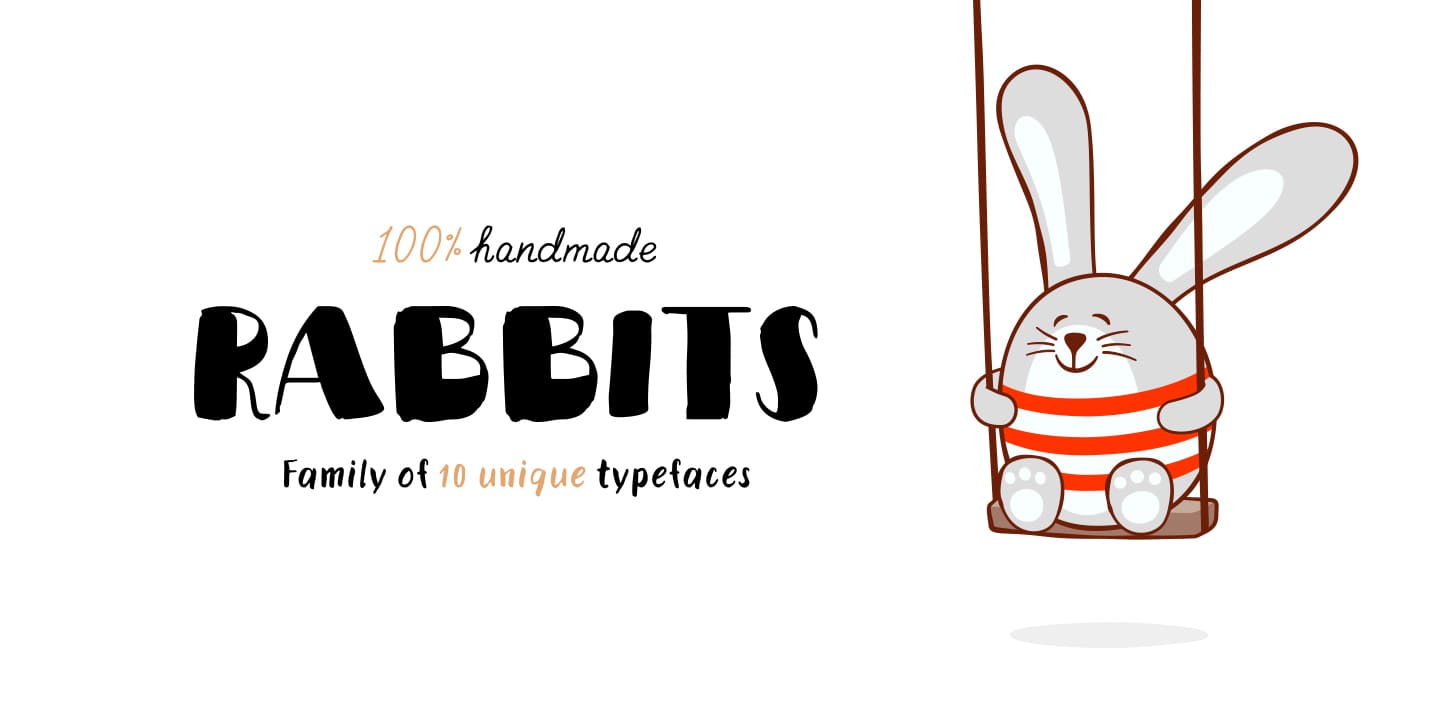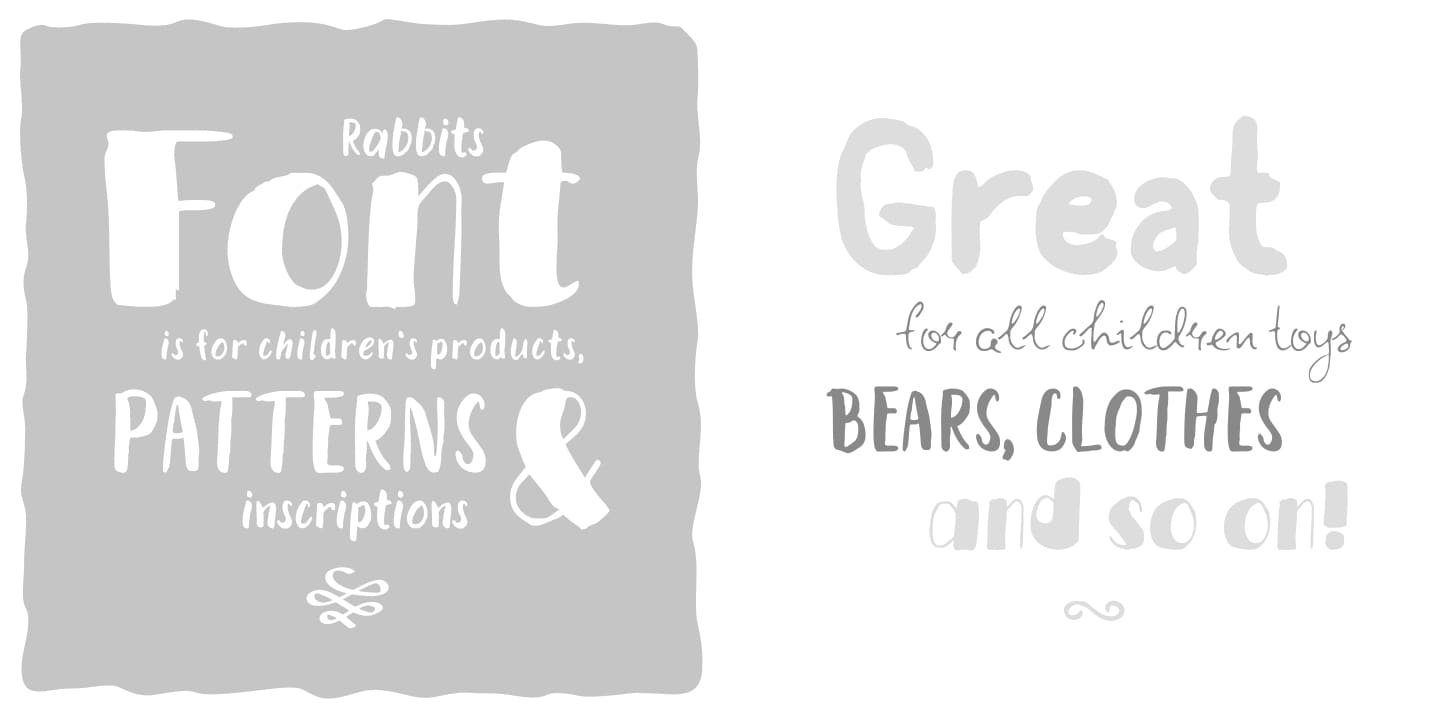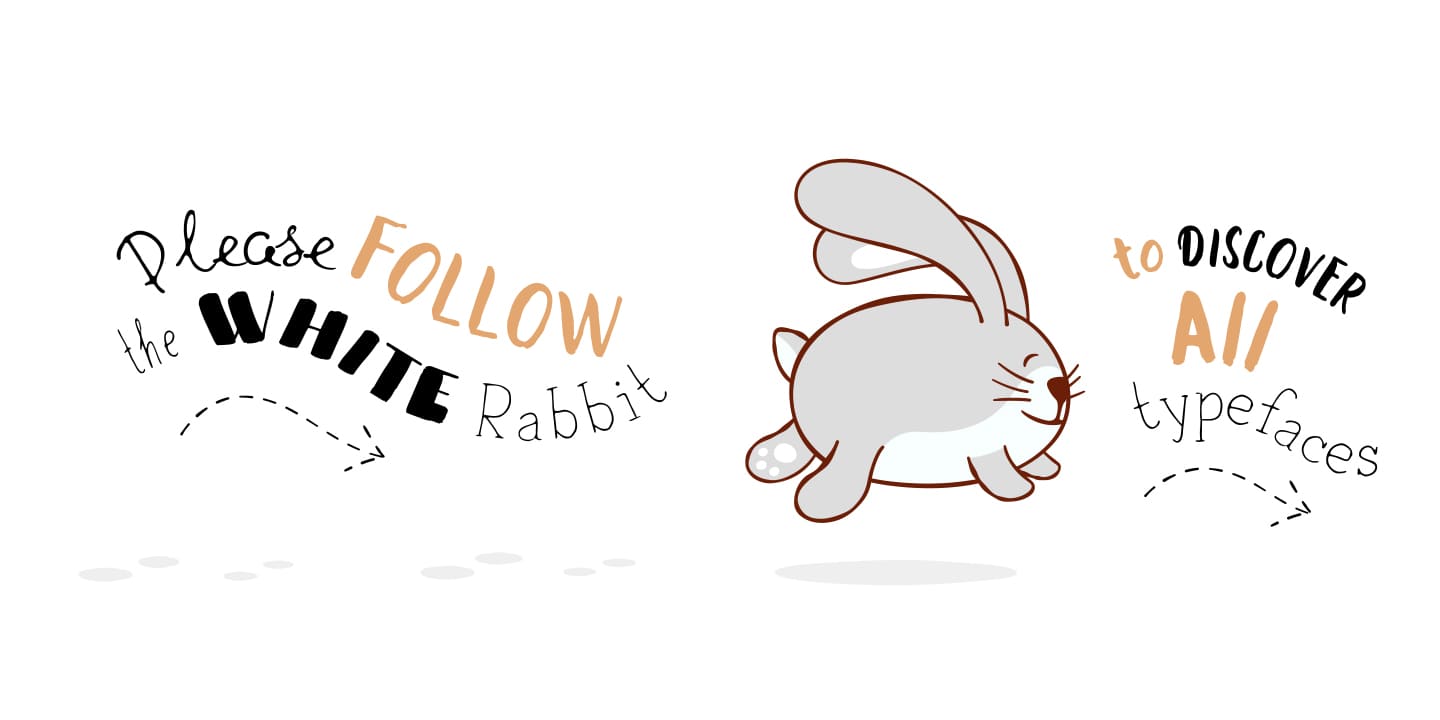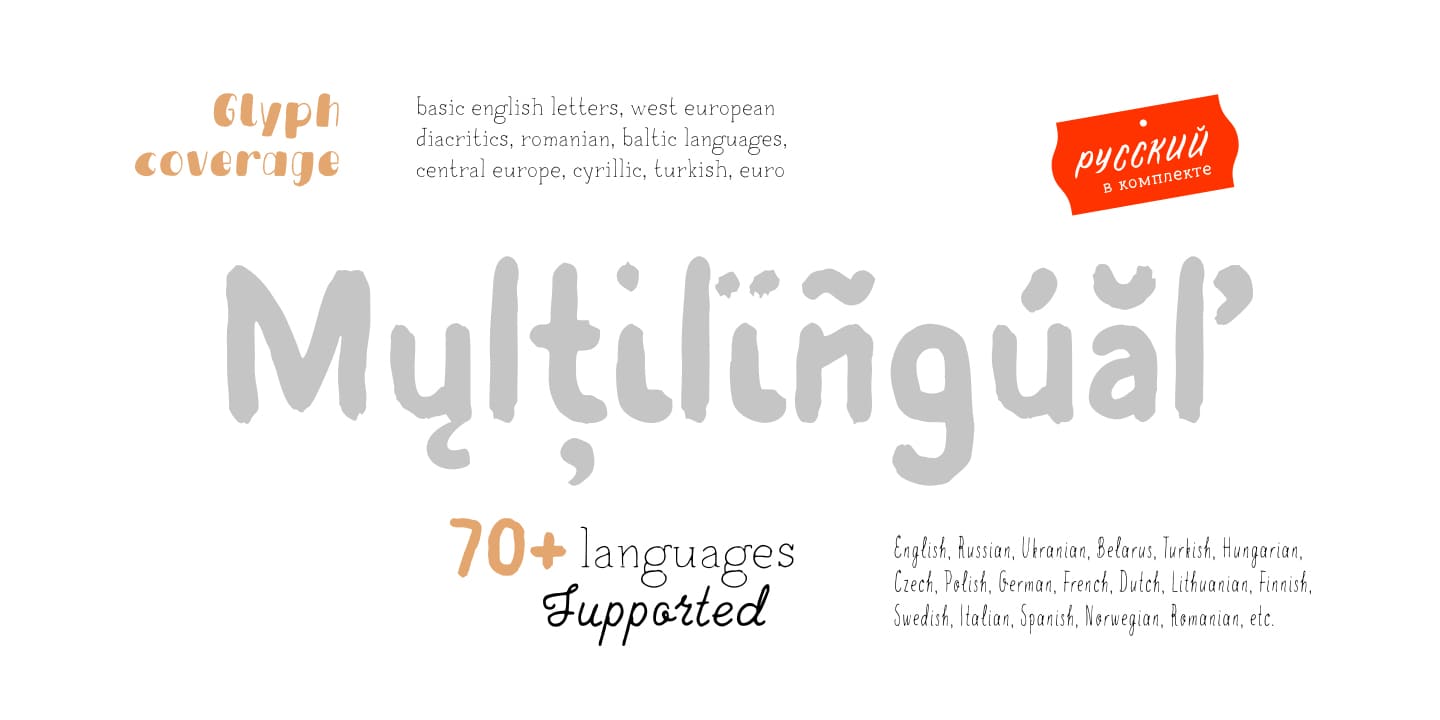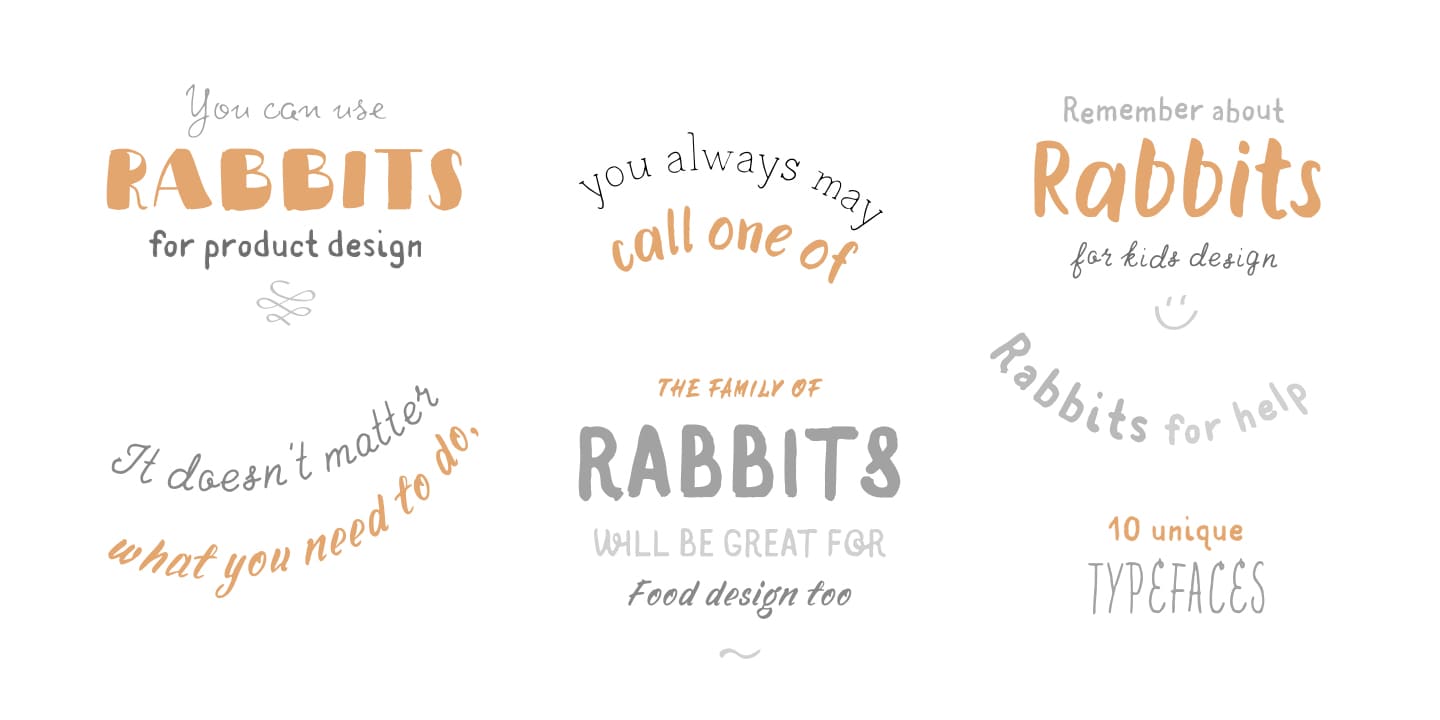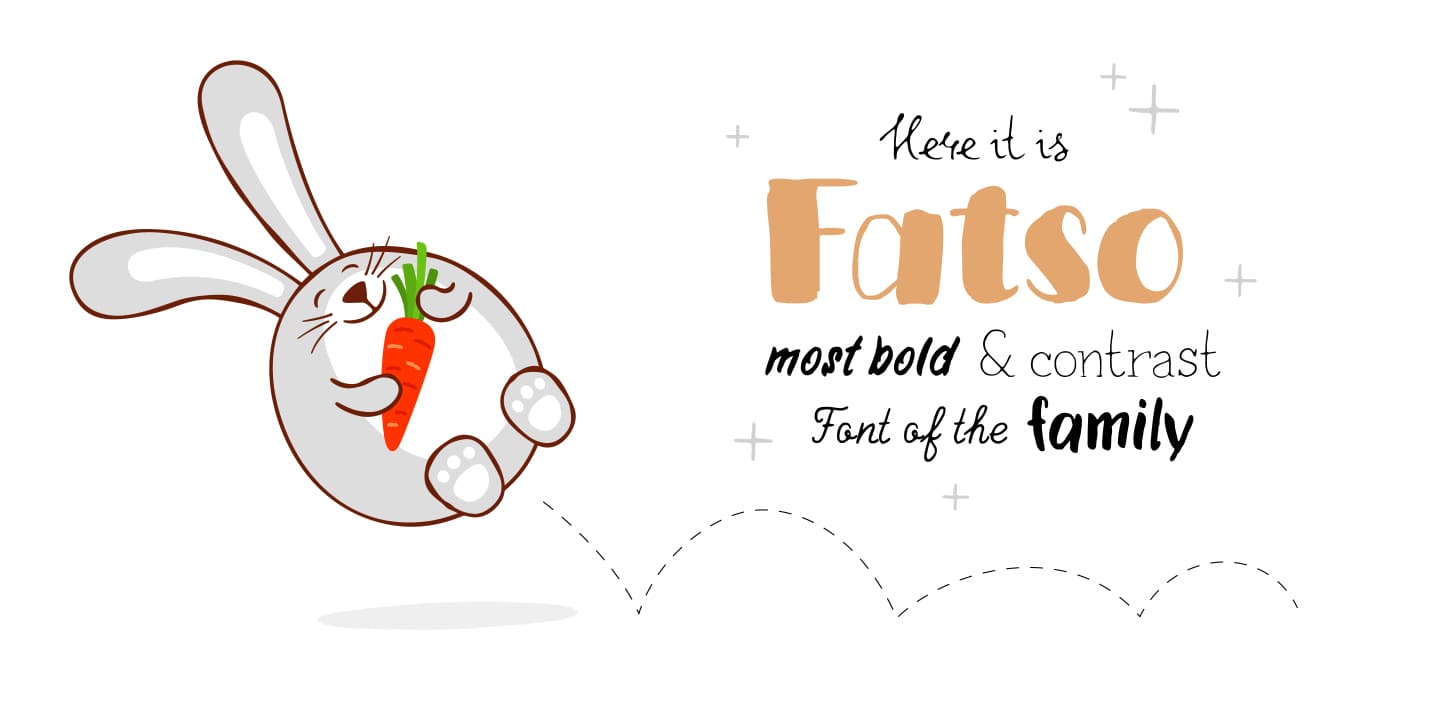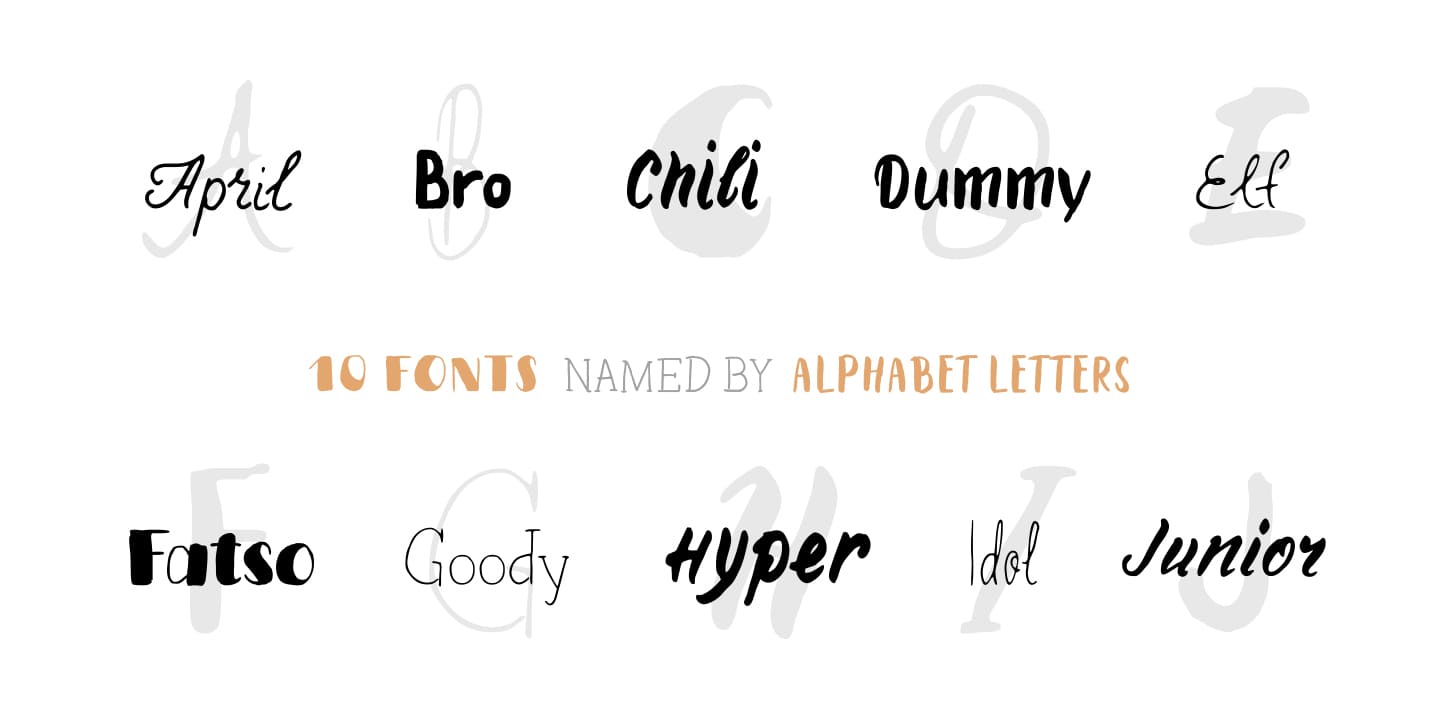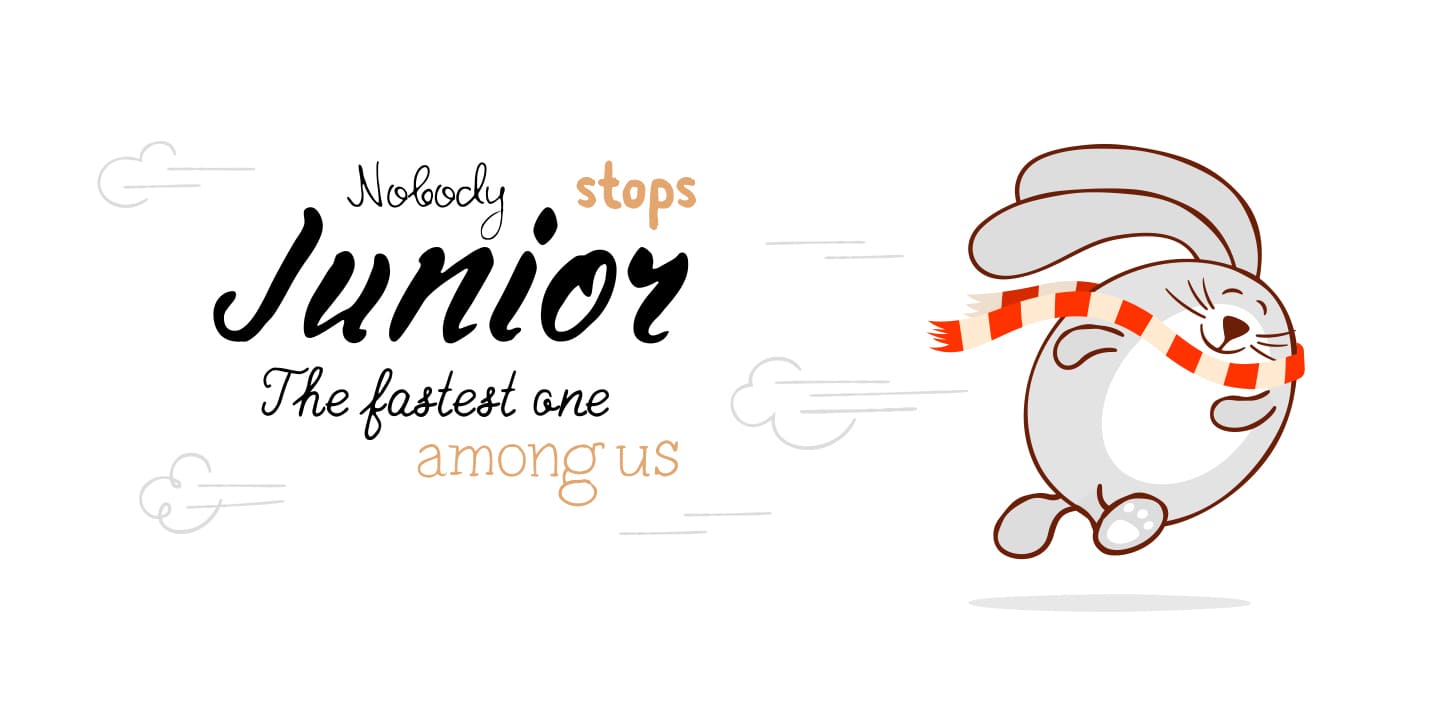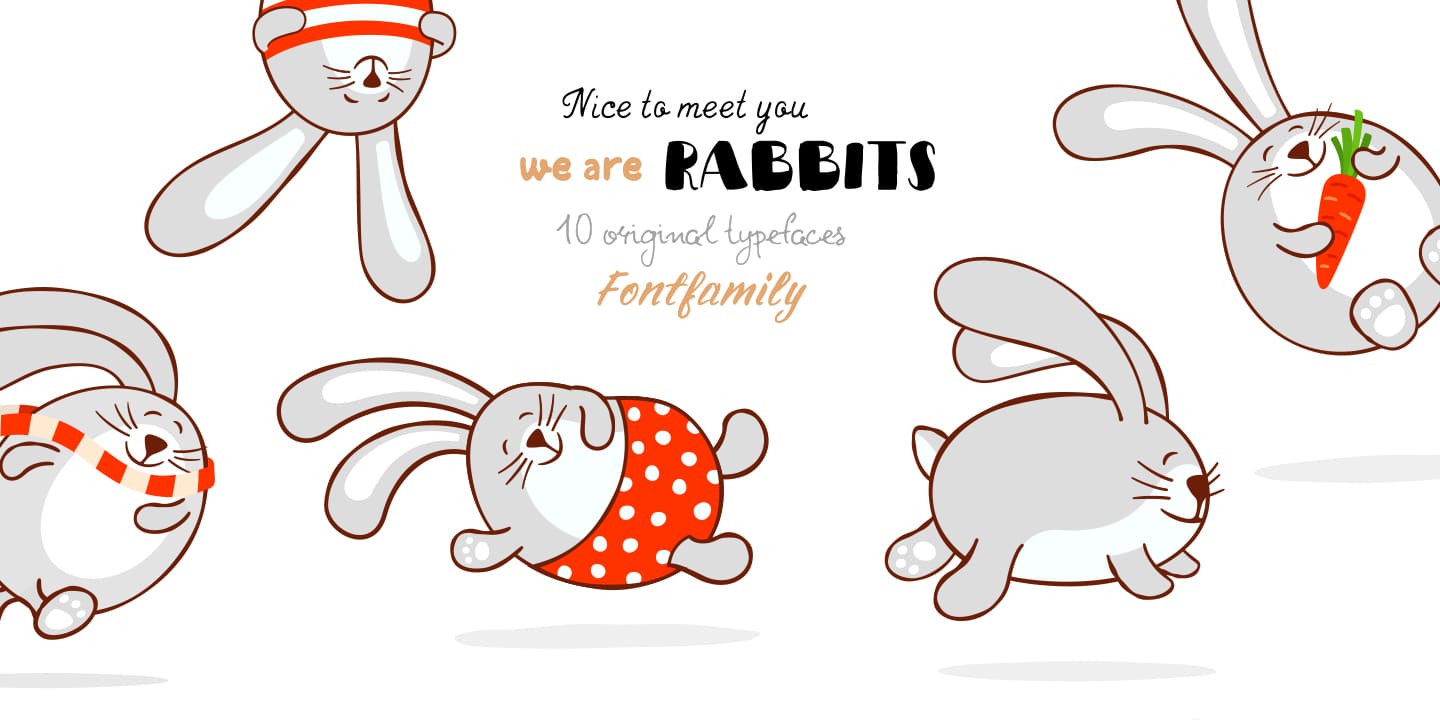
Rabbits Family (10 fonts)
We’ve given each rabbit a unique name. The names are arranged as the first 10 letters of the Latin alphabet: A — April, B — Bro, C — Chilli, D — Dummy, E — Elf, F — Fatso, G— Goody, H — Hyper, I — Idol, J — Junior. Each rabbit has its own character, and you’ll definitely like Rabbits because of that. We’ve used an individual writing tool for every font. All the fonts were created on paper first and then digitized. Now, what’s your favorite rabbit?